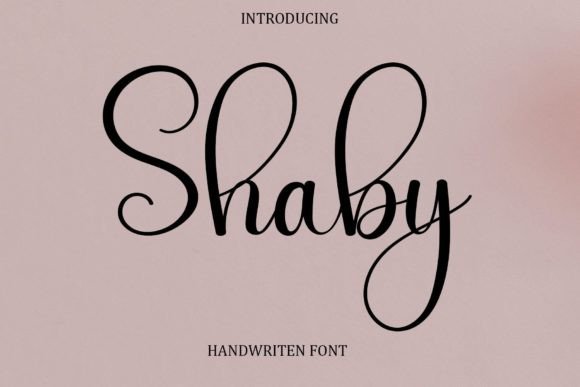
Dive into the world of elegant penmanship with Shaby, a meticulously designed script font brought to you by the talented Harlek Studio. This exquisite font captures the essence of handwritten charm, exuding a genuine and personal touch that adds a special aura to your creative projects.
Unleash your inner artist and let Shaby's graceful strokes guide you as you craft beautiful letters, invitations, and food product labels. Its versatility extends to titles and more, making it an indispensable tool for designers and artists seeking to add a touch of heartfelt elegance to their work.
Embrace the art of calligraphy and make a statement with Shaby. Its fluid curves mimic the natural flow of a skilled calligrapher's hand, creating designs that evoke a sense of artistry and sophistication. Whether you're a seasoned professional or just starting your creative journey, Shaby will elevate your projects with its captivating charm.
Get lost in a world of creativity as you explore the endless possibilities of Shaby. Its delicate lines and elegant flourishes add a touch of personality and warmth to your designs, making them stand out from the crowd. From heartfelt letters to alluring invitations, Shaby effortlessly enhances your message, ensuring it leaves a lasting impression.
Immerse yourself in the beauty of Shaby, a font that embodies the essence of handwritten artistry. With each stroke, you'll feel the connection to the past, the warmth of a handwritten note, and the timeless appeal of classic calligraphy. Experience the joy of creating designs that captivate hearts and leave an enduring legacy.